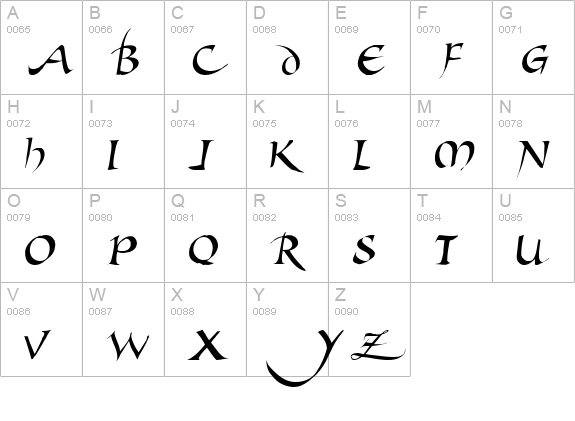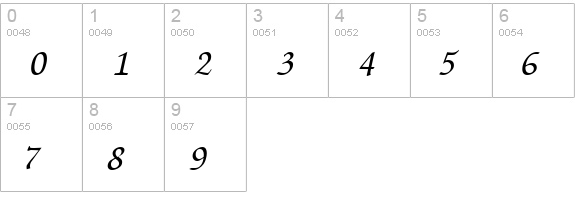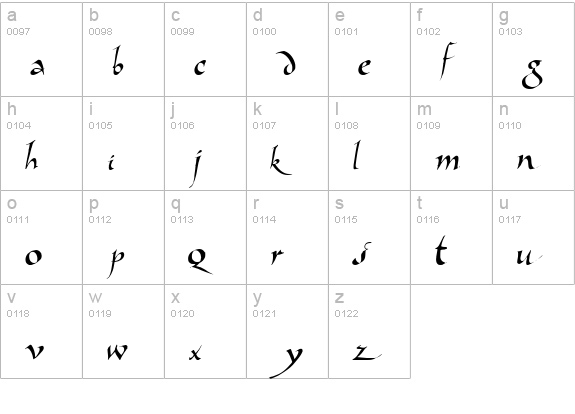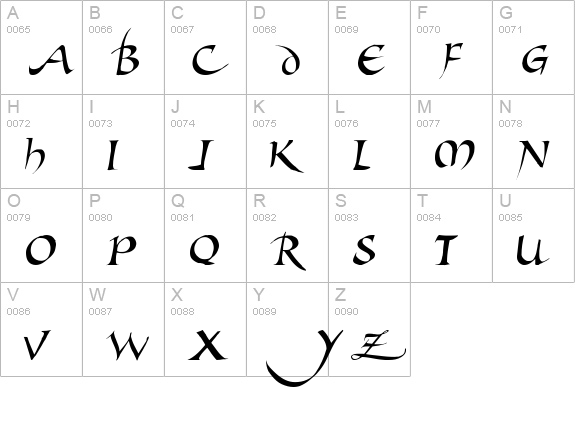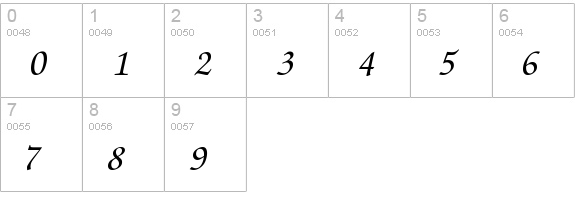
Dangerous Regular Font Details
Dangerous Regular is the standard, neutral variant in the Dangerous typeface family \xE2\x80\x94 well suited to general body text, paragraphs, and standard typographic work.
Introducing Dangerous Regular, a captivating and edgy font that exudes a sense of danger and excitement. With its sharp and bold letterforms, this font is perfect for adding a touch of rebellious flair to any design project. The Dangerous Regular font is distinctively designed to grab attention and make a statement. Its unconventional and daring aesthetic is inspired by the daring adventures of the urban jungle, making it an ideal choice for projects that require an element of danger or adventure. This font is not only visually striking but also highly versatile. It can be used for a wide range of creative projects, including posters, logos, album covers, and more. The unique characters and intricate details of the Dangerous Regular font lend themselves well to both digital and print mediums. One of the best things about the Dangerous Regular font is that it is available for free. Yes, you read that right! You can freely download this captivating font at FontsMarket.com. This means that you can incorporate this stunning typeface into your designs without breaking the bank. Whether you're a professional designer looking to add a touch of danger to your work or an individual with a passion for creativity, the Dangerous Regular font is a must-have in your collection. So, don't miss out on the opportunity to download this extraordinary font for free at FontsMarket.com and unleash your creativity with its captivating energy.